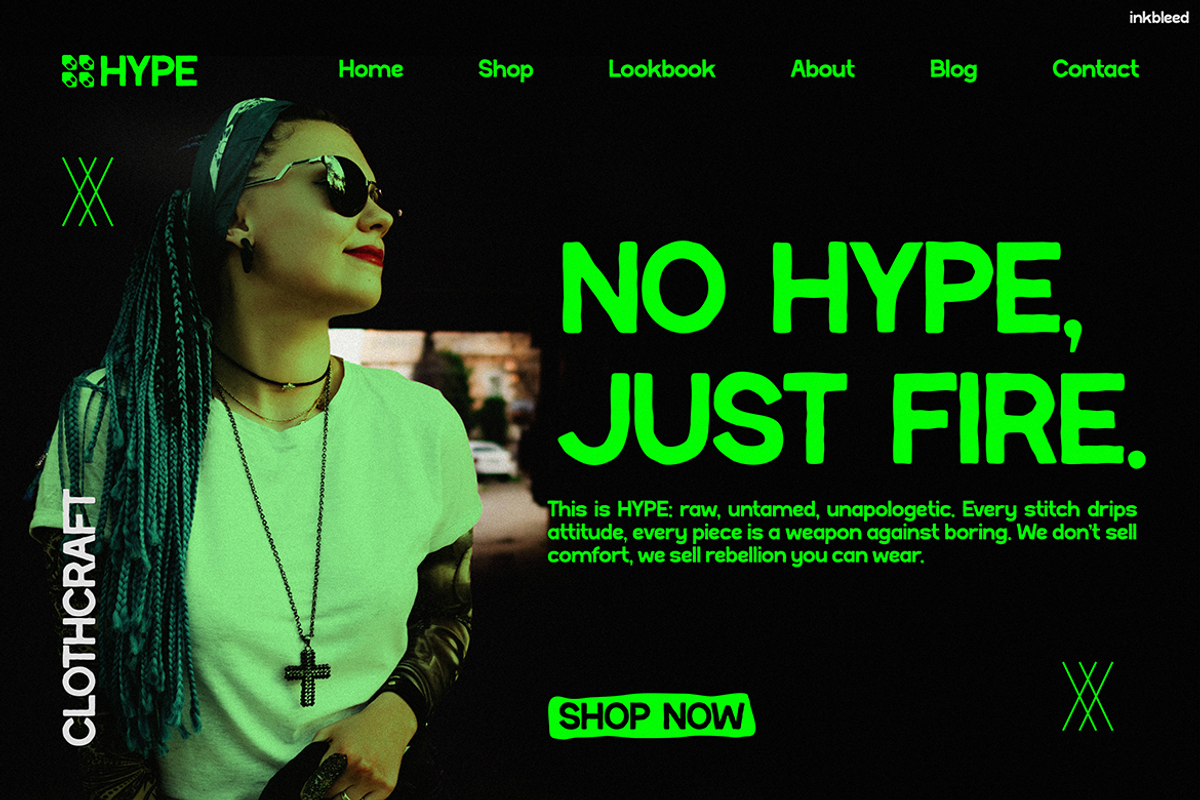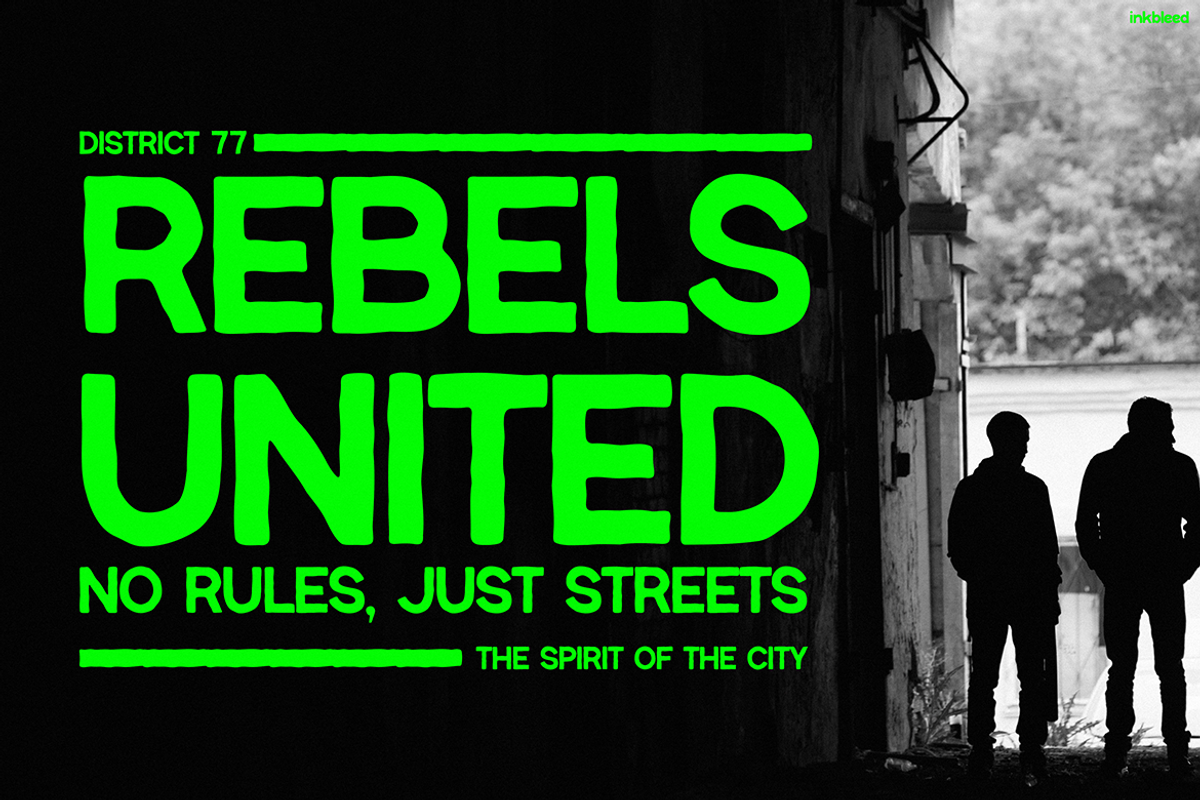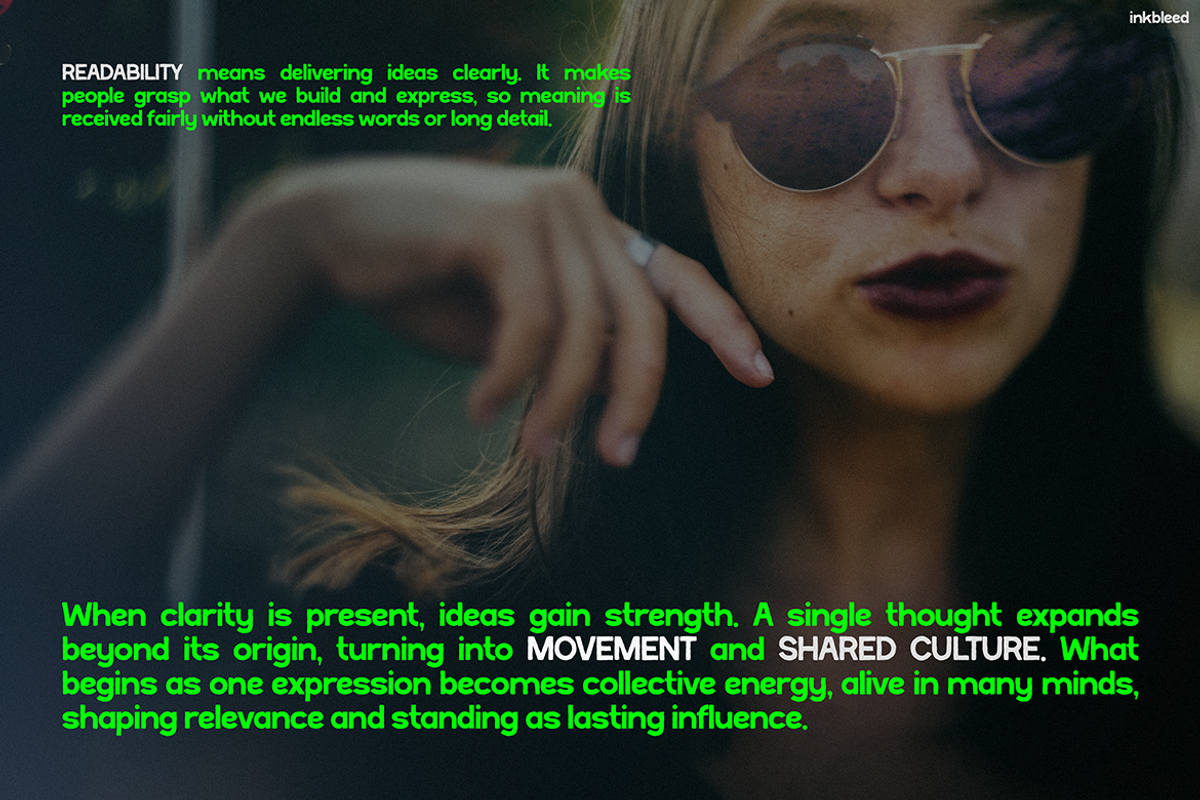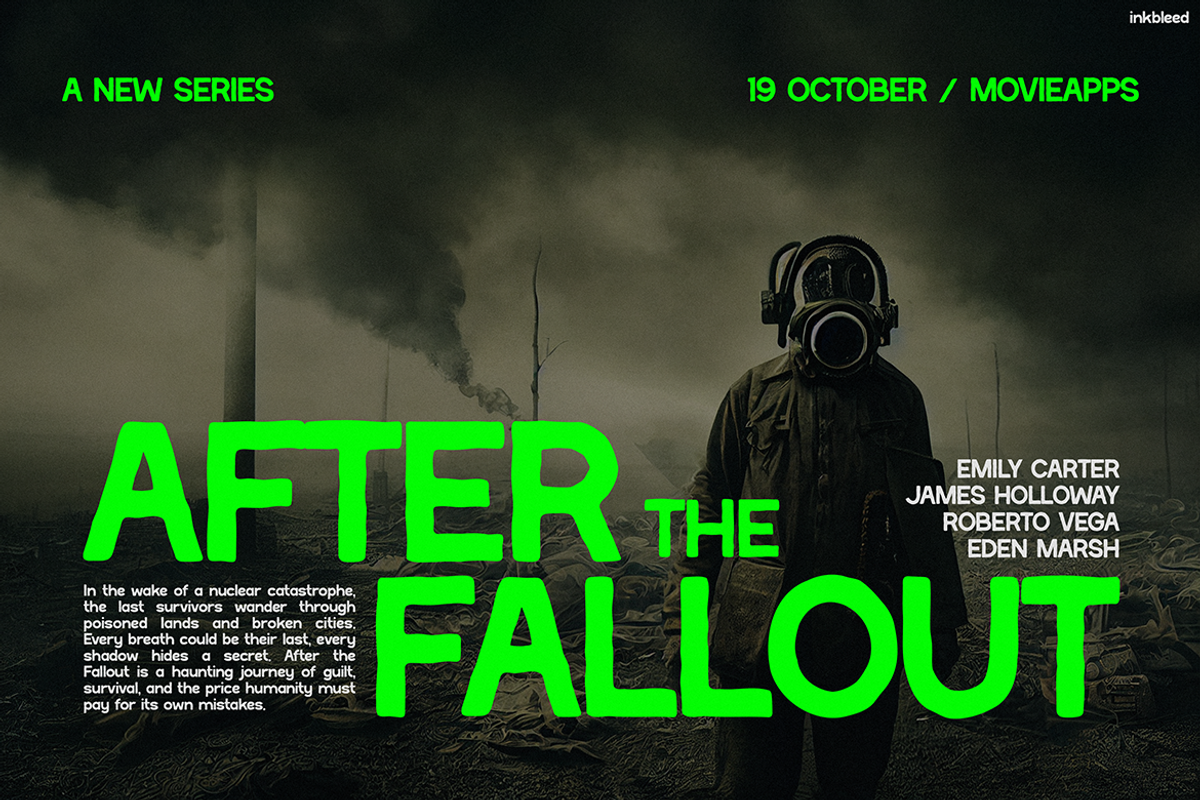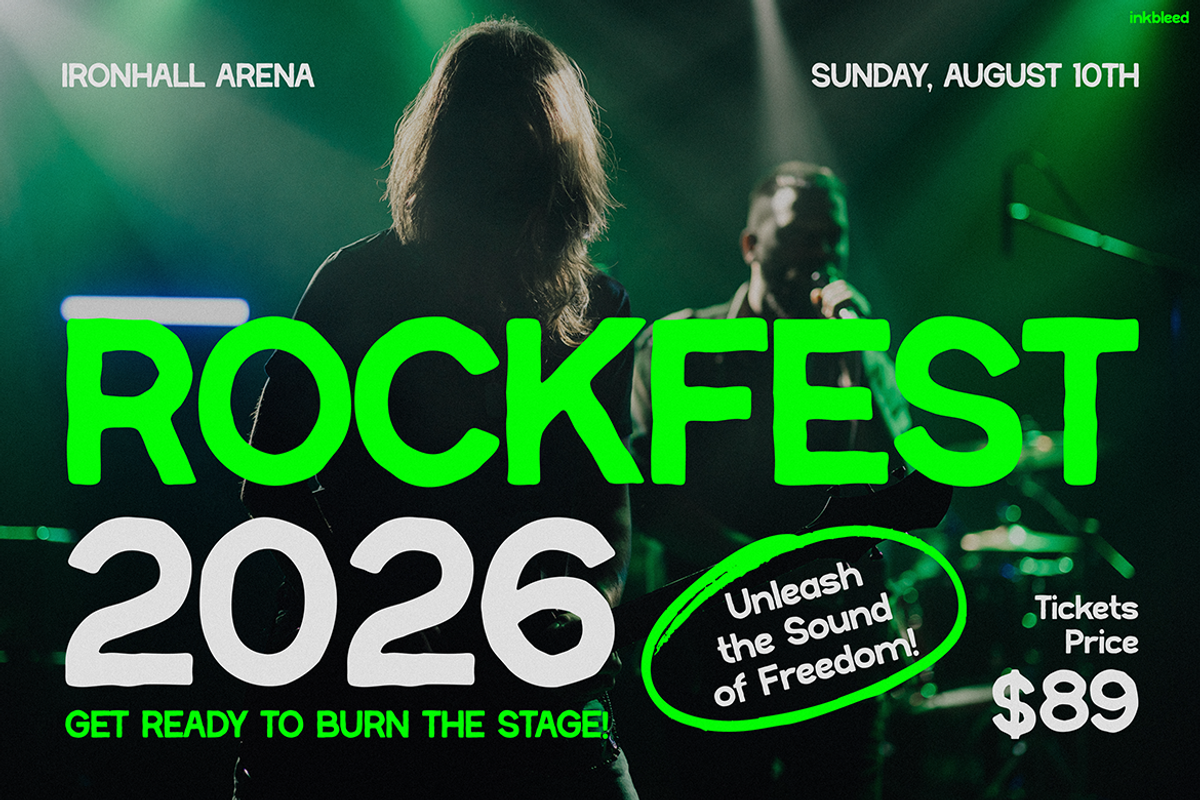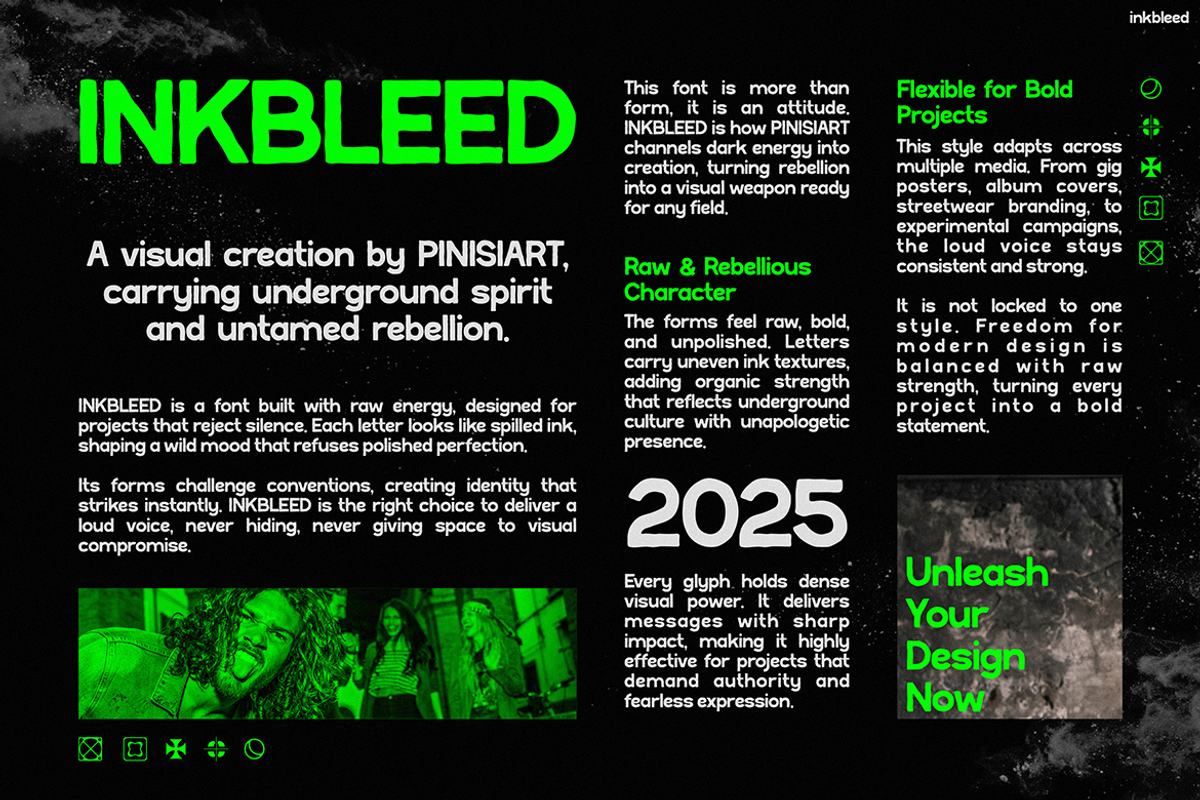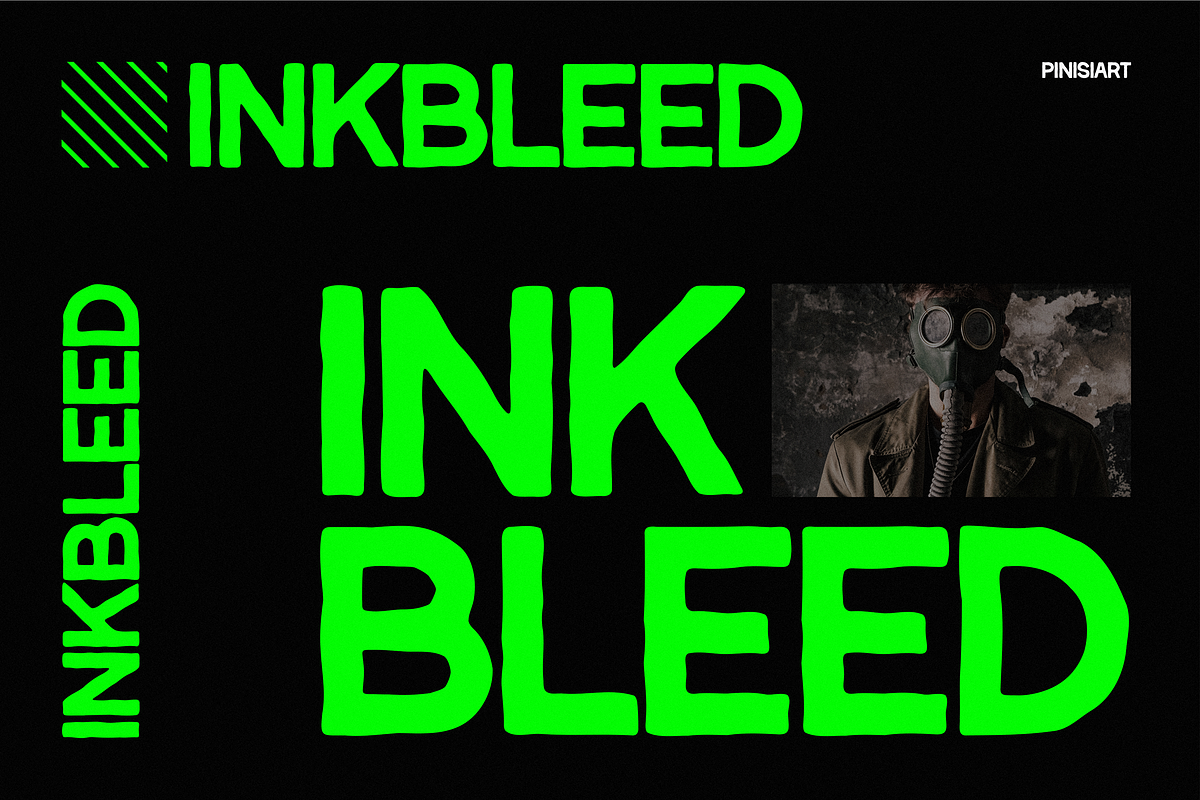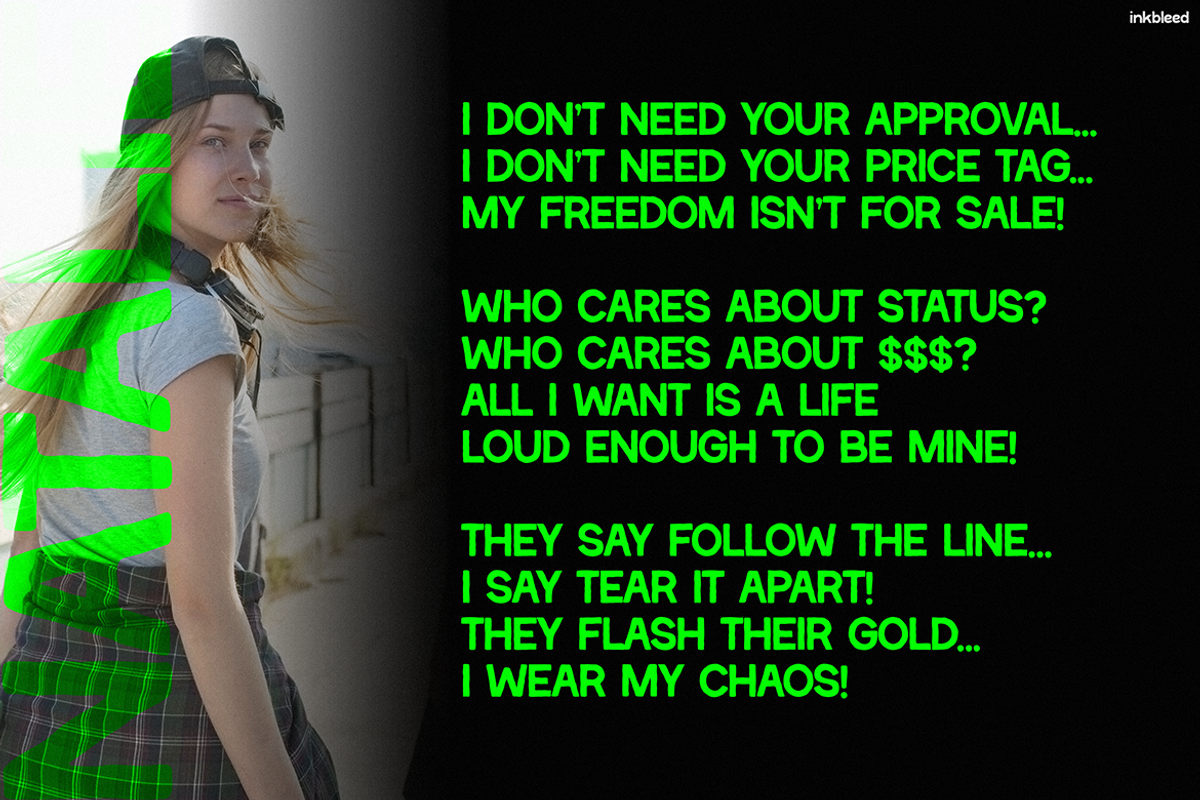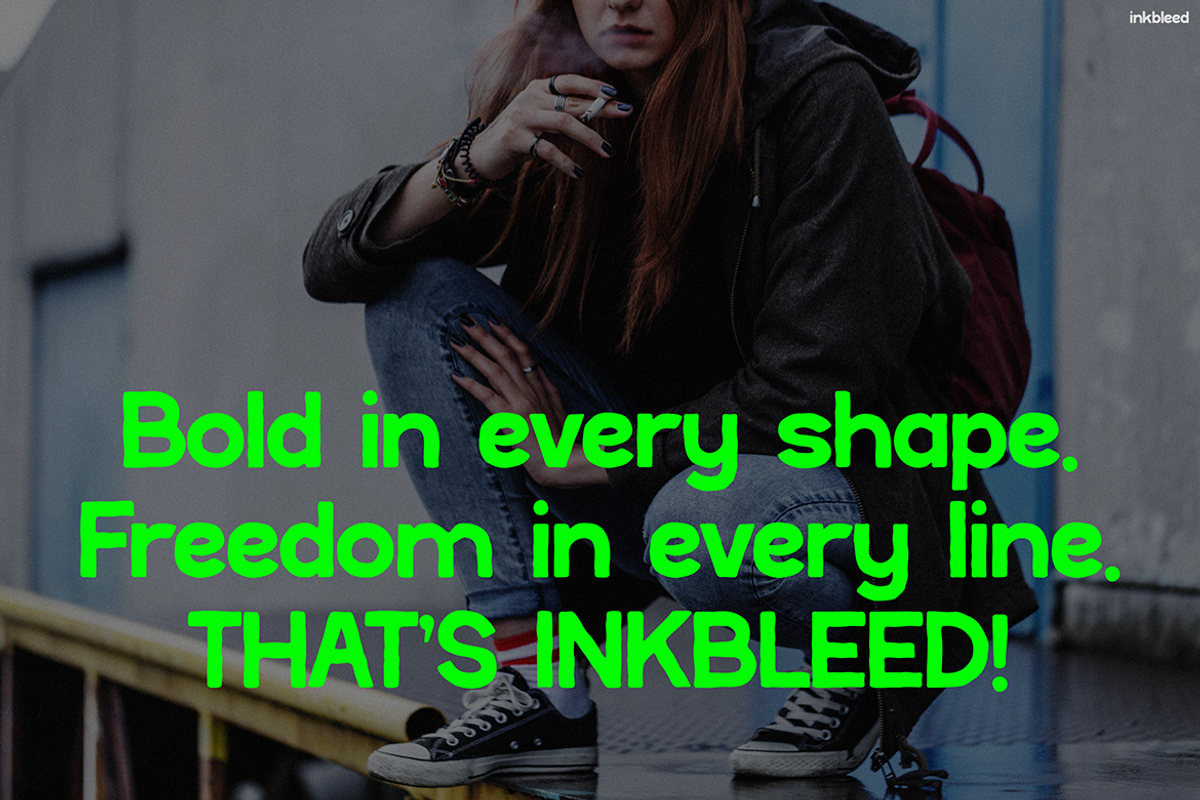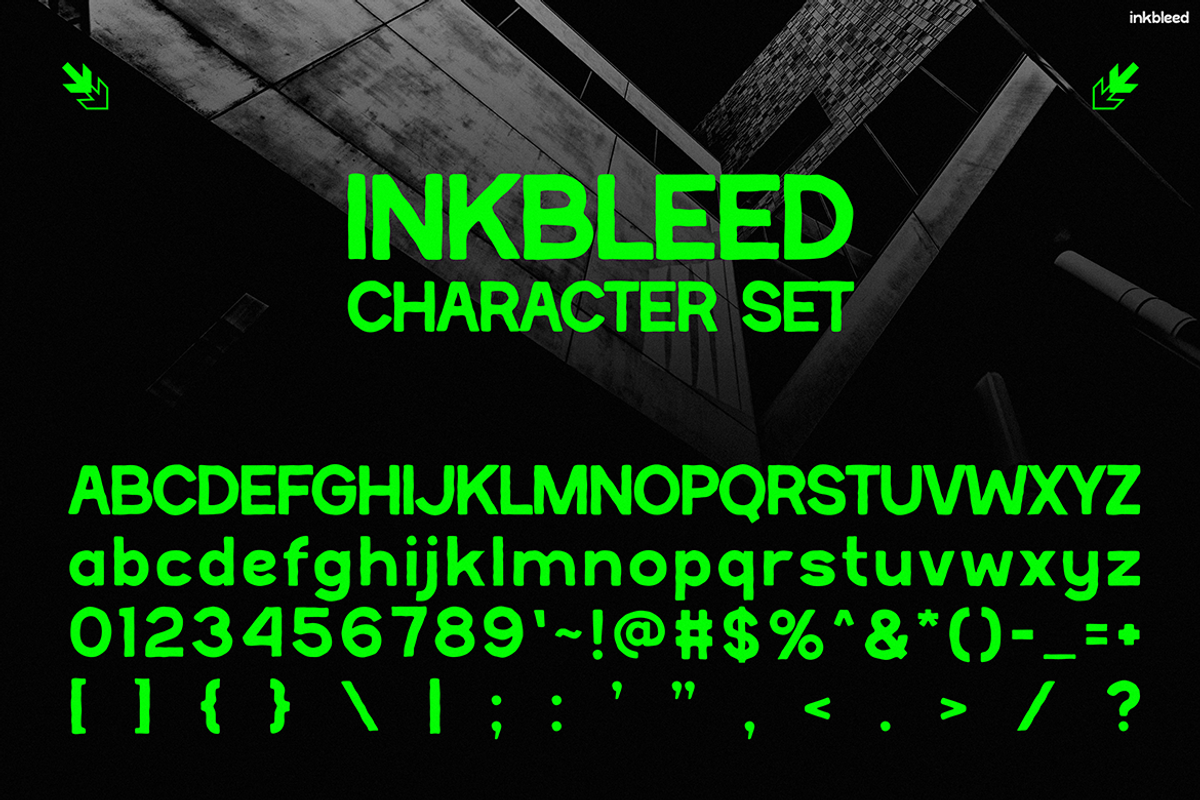
Inkbleed
Instagram Font Inkbleed Why It Stands Out
Instagram Font Inkbleed is not just a font—it’s an attitude. Born from the clash of street rebellion and futuristic vision, this typeface drips with confidence and raw energy. Moreover, its sharp edges, bold weight, and electric neon vibe make it impossible to ignore. Whether you’re creating edgy Instagram posts, gritty posters, or loud festival graphics, Inkbleed ensures your message breaks free from the ordinary and demands attention.
What makes it unique is its ability to merge street-inspired chaos with clean readability. As a result, your designs become visually powerful yet easy to read. In addition, every character feels like a visual punch, designed to make your words stand tall and fearless.